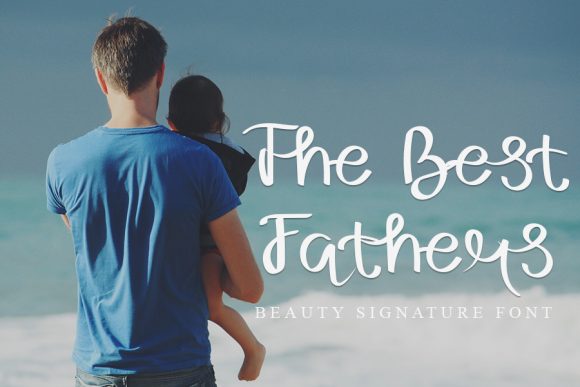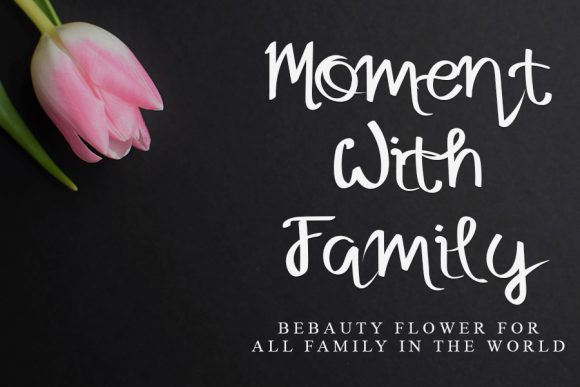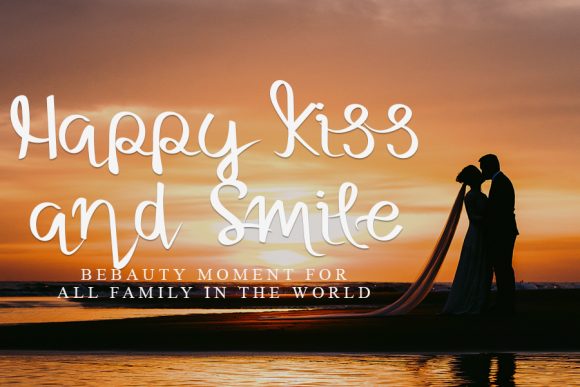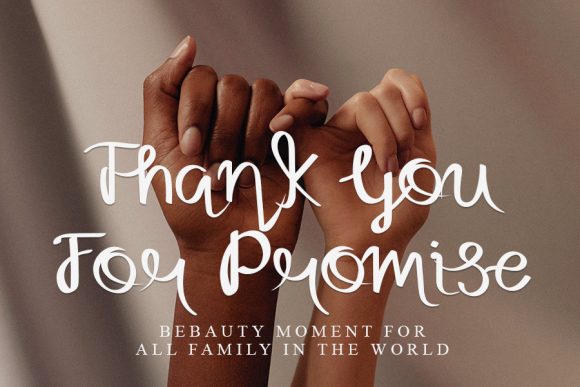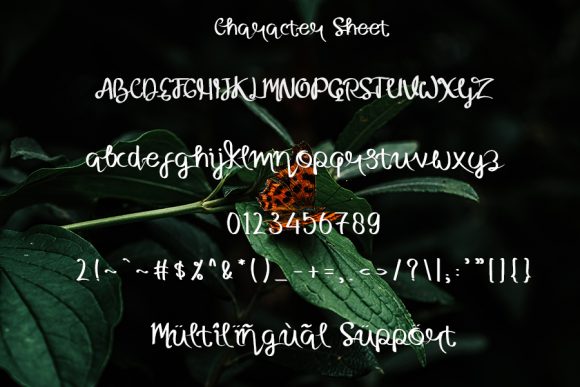
Signature Right Font
About Signature Right Font
Signature Right is a beautiful light handwritten font with a unique feel and a stunning impact. It will add a luxury spark to any design project that you wish to create!